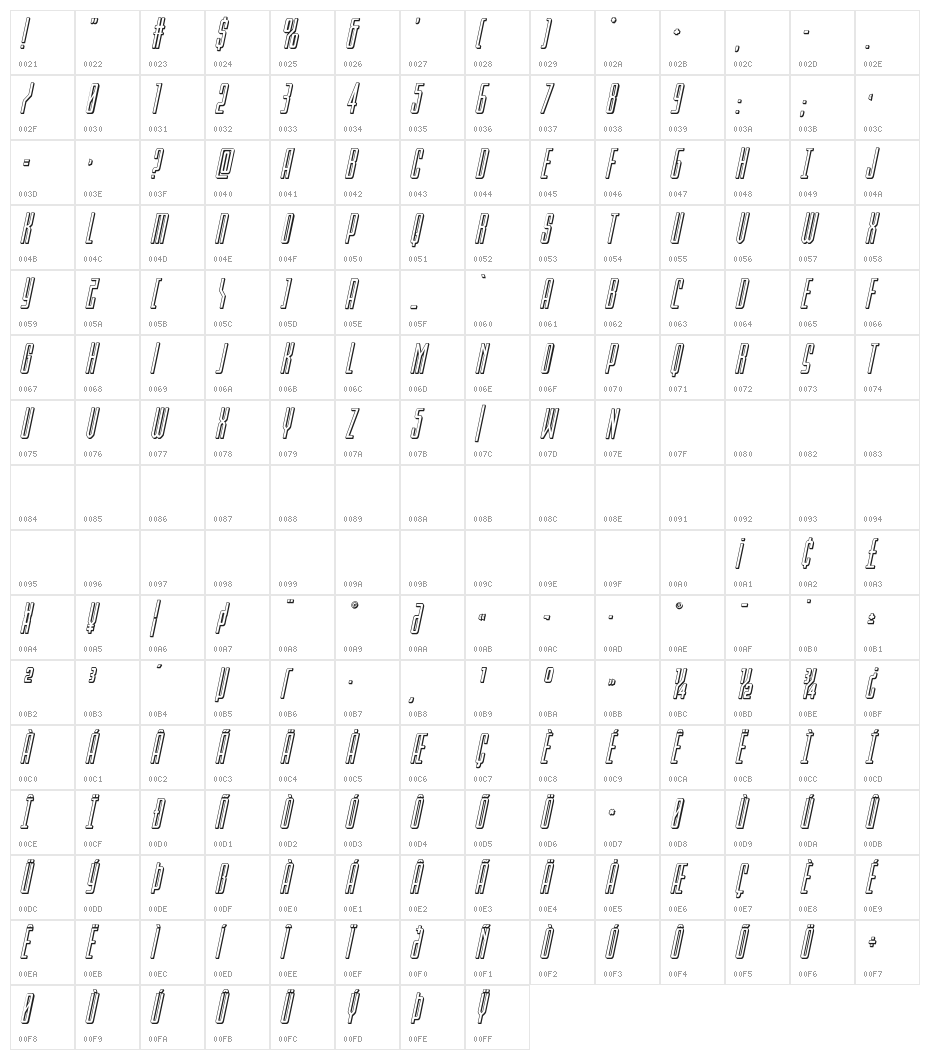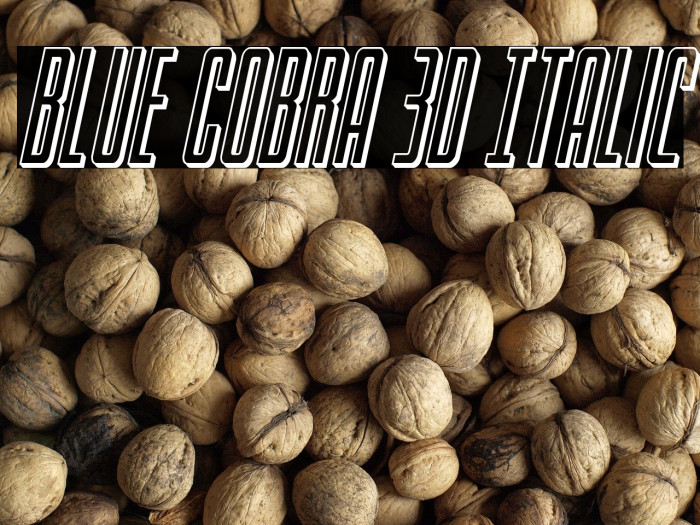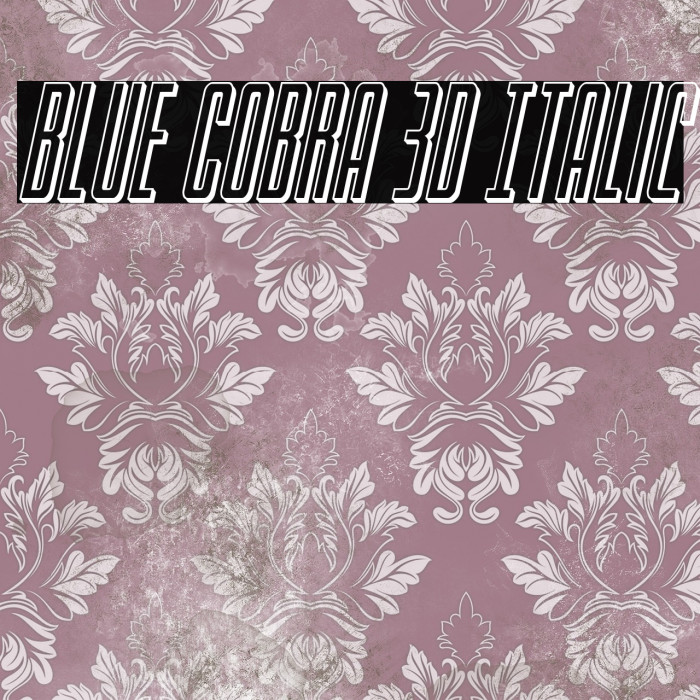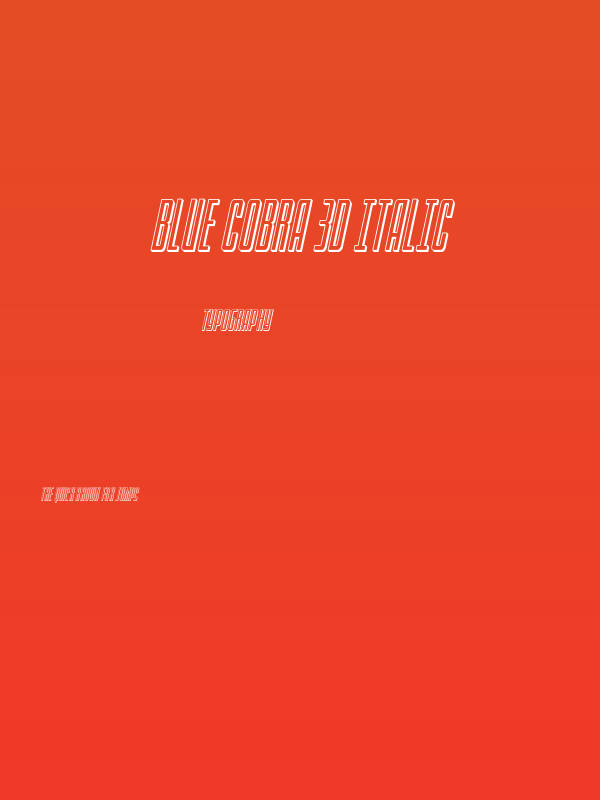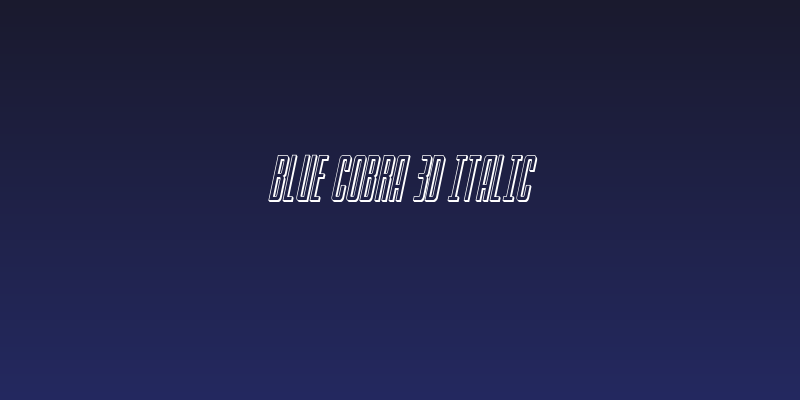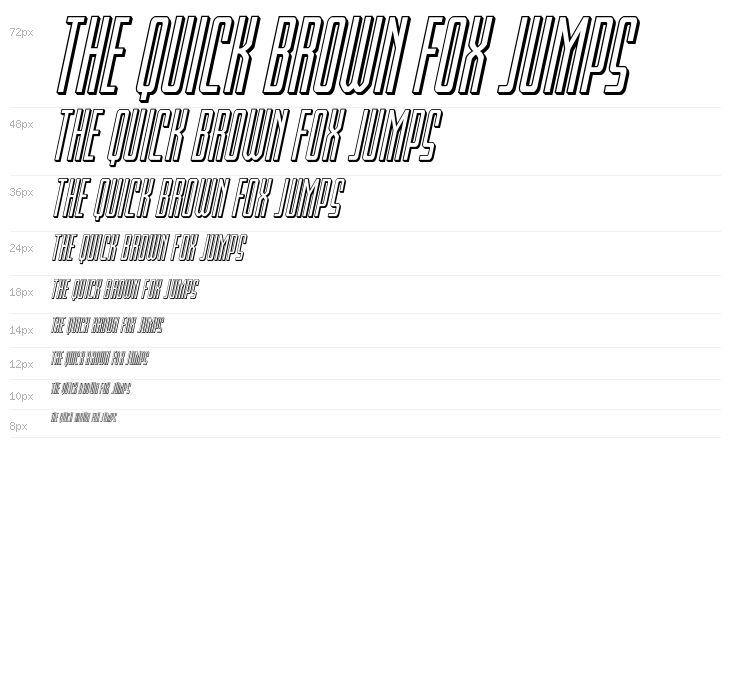
Blue Cobra 3D Italic Font
Blue Cobra 3D Italic Description
This font features a bold, three-dimensional appearance with a distinct italic slant, giving it a dynamic and modern look. The characters are outlined, creating a striking visual effect that enhances readability while maintaining a unique style. The uppercase and lowercase letters are consistent in their angular design, and the numbers and special characters follow the same aesthetic, ensuring uniformity across all elements. The font's design is suitable for projects that require a bold statement, such as posters, headlines, and branding materials. Its 3D effect adds depth, making it ideal for digital media and print alike.
| Proposed Projects | Ideal for posters, headlines, branding, and digital media projects that require a bold and modern look. |